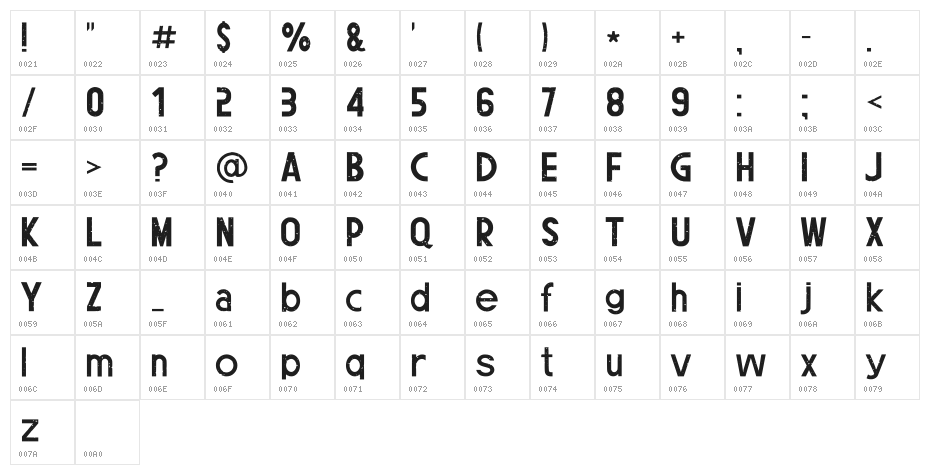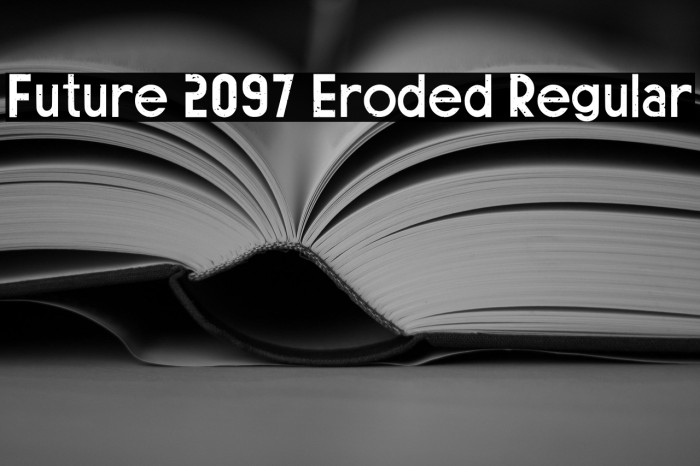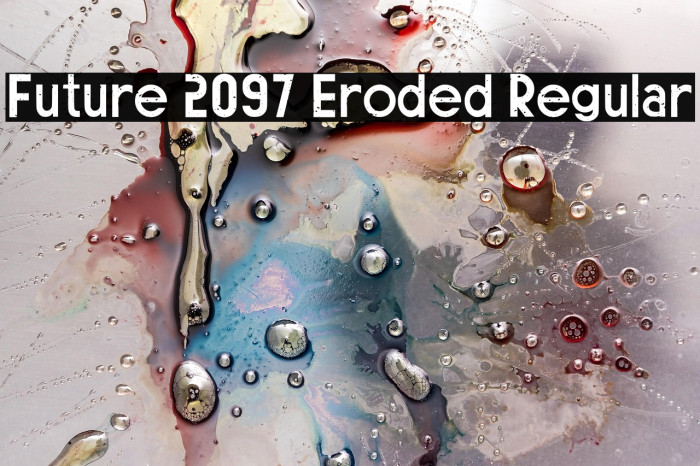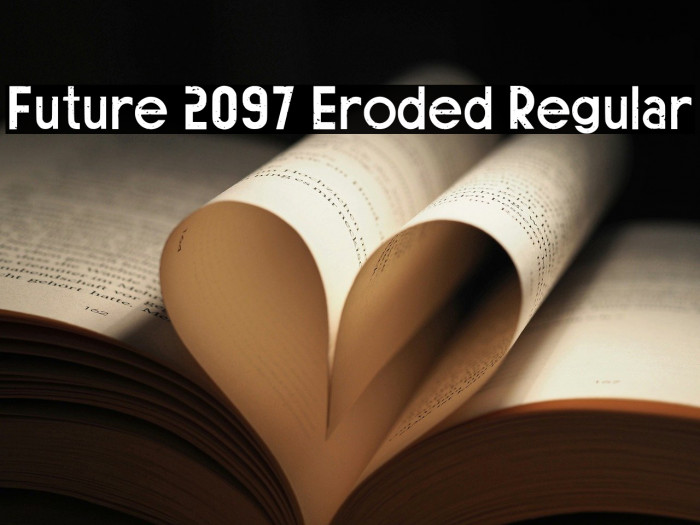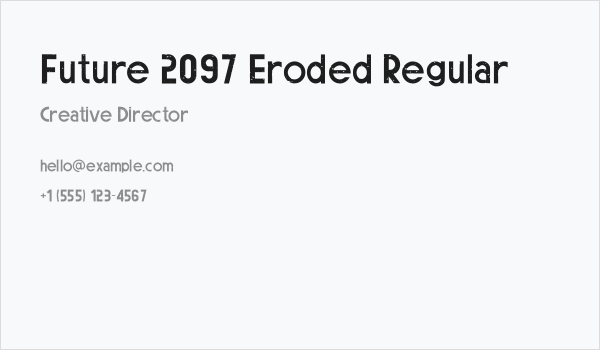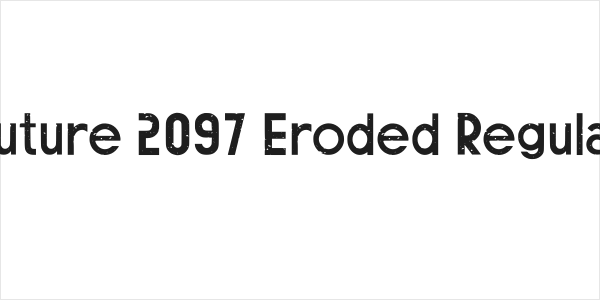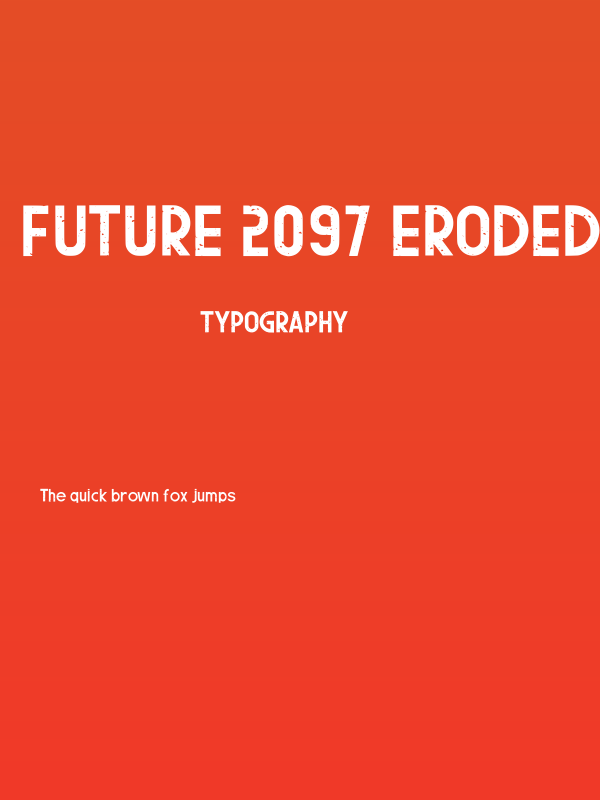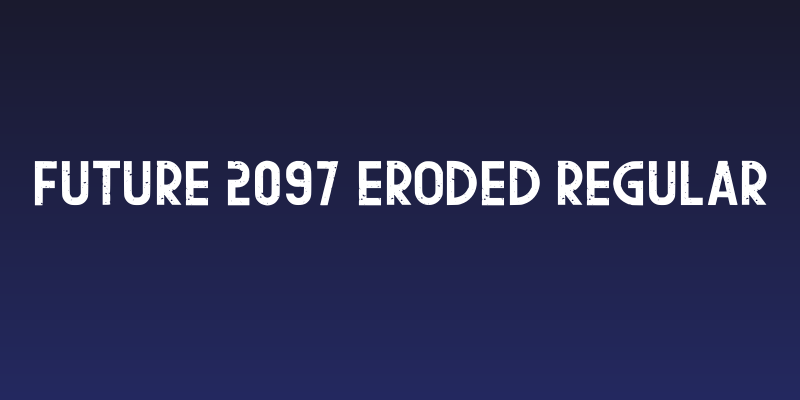
Future 2097 Eroded Regular Font
Future 2097 Eroded Regular Description
This font features a bold, distressed style with an eroded texture that gives it a rugged, futuristic appearance. The uppercase and lowercase letters are uniformly bold, with a consistent width that maintains readability despite the eroded effect. The numbers and special characters follow the same design, ensuring a cohesive look across all elements. The font's unique texture makes it ideal for projects that require a gritty, industrial feel. Its boldness ensures it stands out, making it suitable for attention-grabbing headlines or titles.
| Overall Style | Futuristic, Industrial |
| Proposed Projects | Ideal for sci-fi themed posters, video game titles, industrial design projects, and edgy branding materials. |